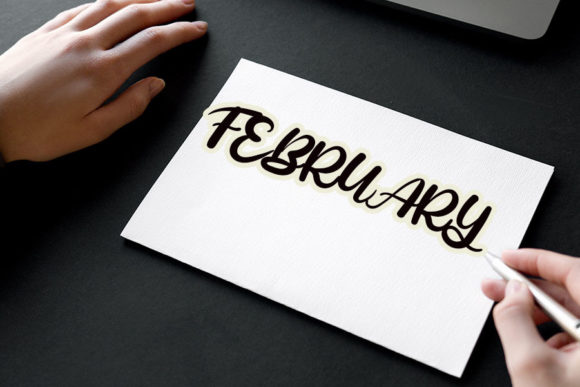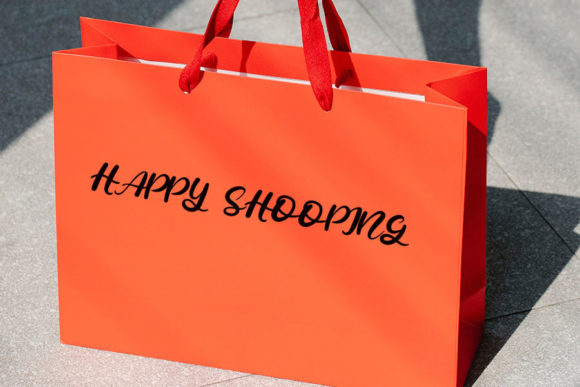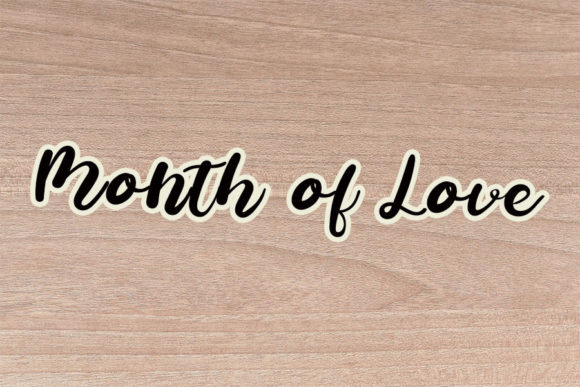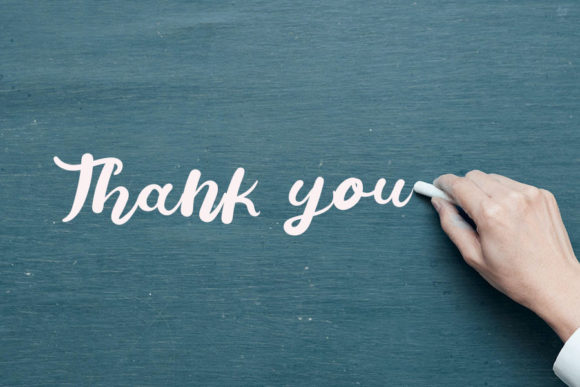
The Perfect Font for Your Next Design Project
You know that moment when you’re brainstorming ideas for a new project and suddenly, everything falls into place? The design, the colors, the font – it all just clicks. For me, that moment often involves the Amsterdam Font. This cute and natural display font is perfect for adding a touch of whimsy to any design.
Whether you’re creating a food menu, a poster, a flyer, or a print, the Amsterdam Font is sure to make your design stand out. Its versatility and charm make it a valuable asset for designers of all levels. With the Amsterdam Font, you can explore endless possibilities and bring your creative vision to life.
Amsterdam Font Key Features
- Unique Characteristics: The font features a unique, handwritten style with subtle irregularities and variations in letterforms, giving it a distinctive and humanistic feel.
Amsterdam Font Review
First of all, I love the Amsterdam Font’s✨ elegant, modern feel. The rounded edges and subtle flair give it a unique touch that works well in a variety of contexts. It’s a great choice for digital and print projects alike.
The Amsterdam Font is highly legible, making it perfect for body text, headings, and even captions. It’s also surprisingly versatile, working well in both serif and sans-serif contexts.
- ✨ Elegant, modern feel
- ✨ Highly legible
- ✨ Versatile
- ✨ Works well in both digital and print projects
- ⚠️ Limited language support
- ⚠️ May not be the best choice for very small text sizes
- ⚠️ Some users may find the rounded edges too playful for certain projects
Overall, I’m really impressed with the Amsterdam Font. While it has some limitations, its unique feel and high legibility make it a great addition to any designer’s toolkit.
The Amsterdam Font is ideal for:
- Restaurant and cafe menus
- Hotel and accommodation branding
- Any design project that requires a touch of sophistication and elegance